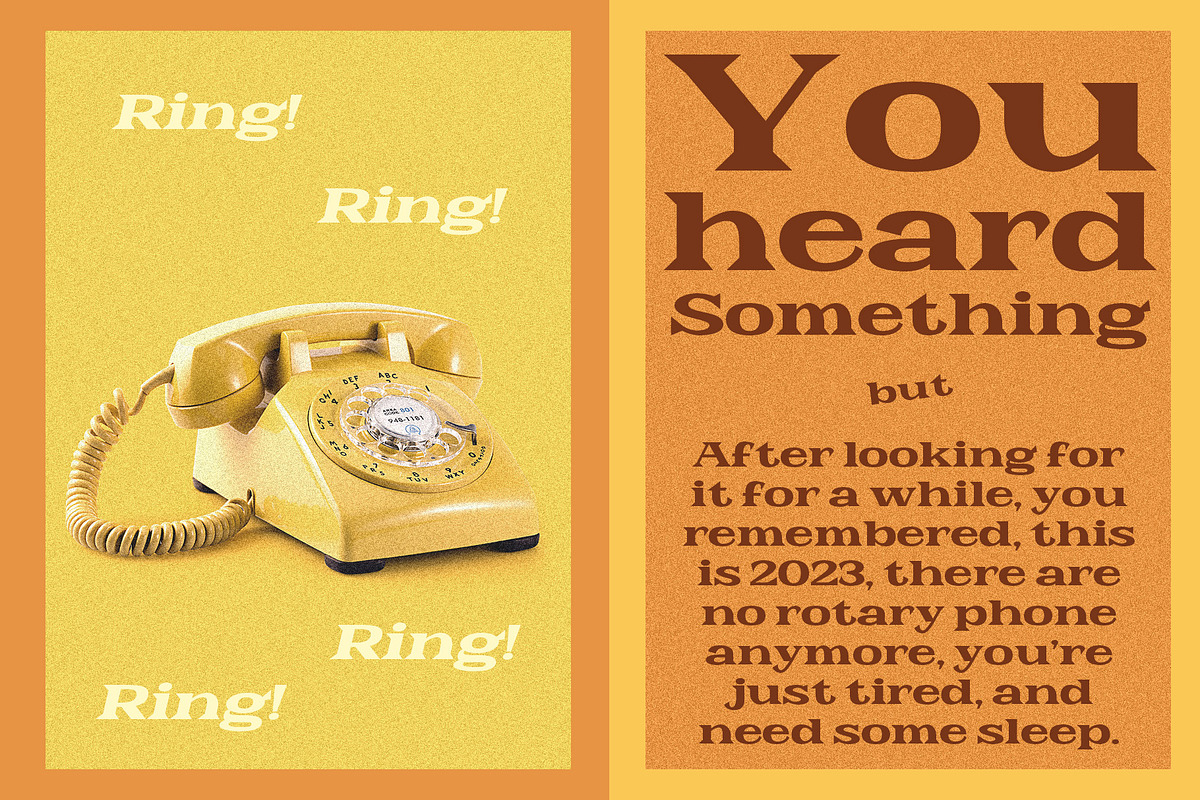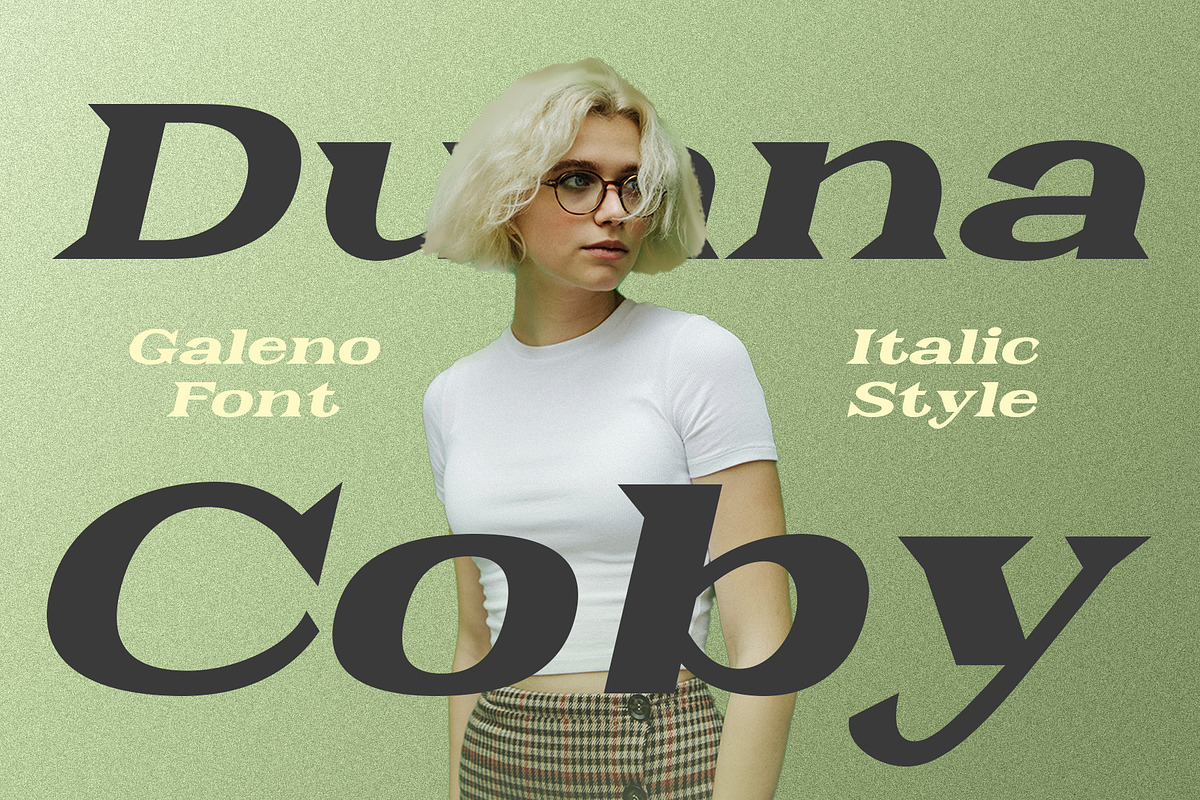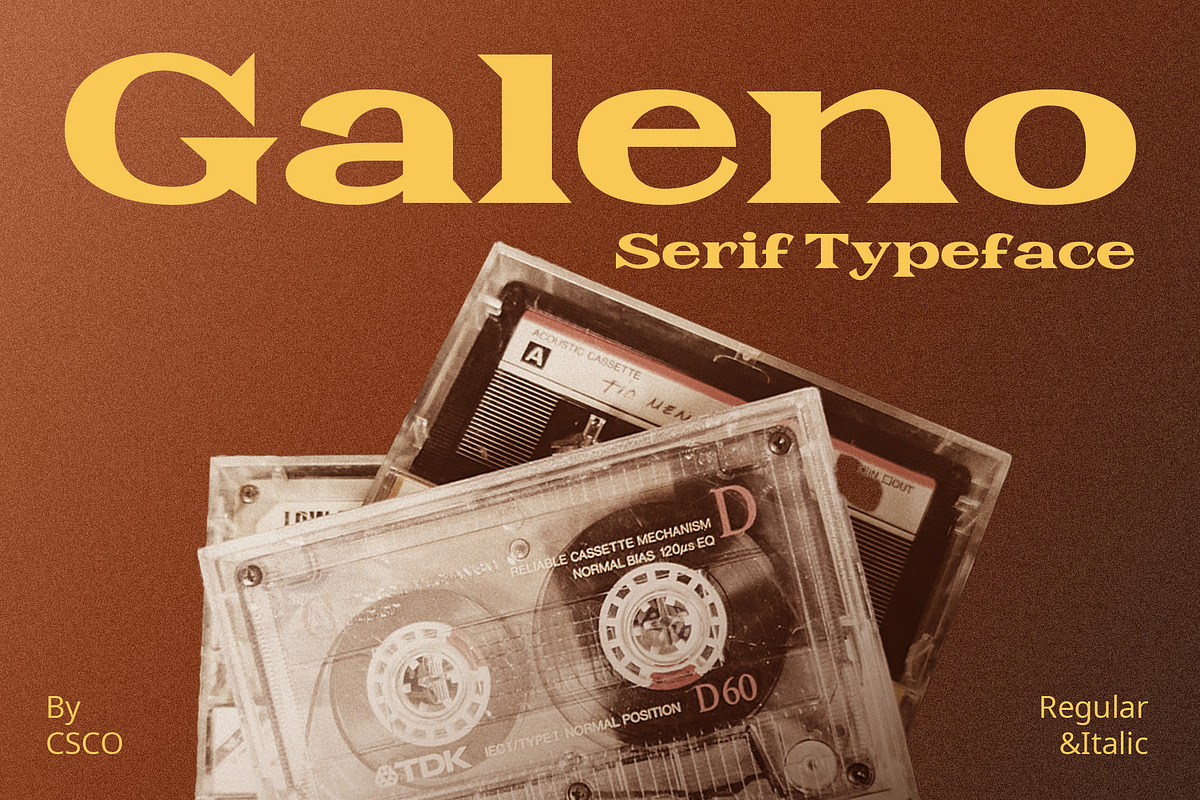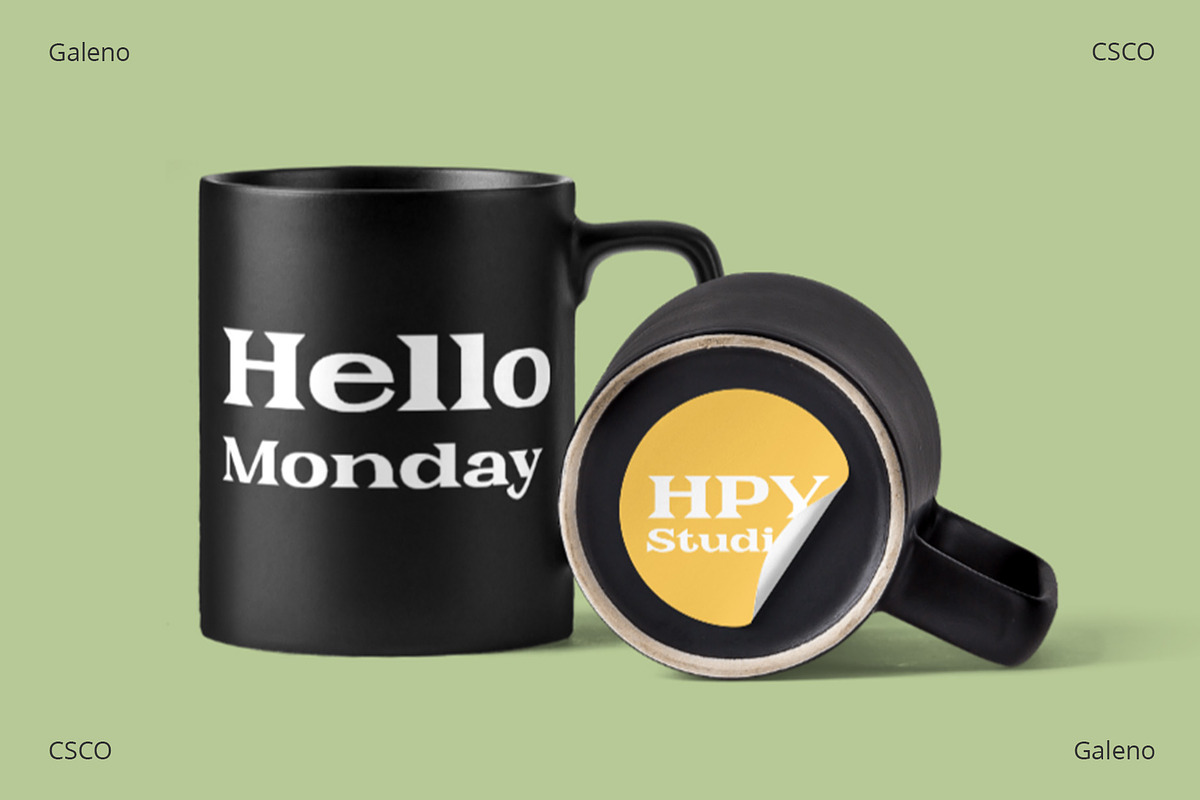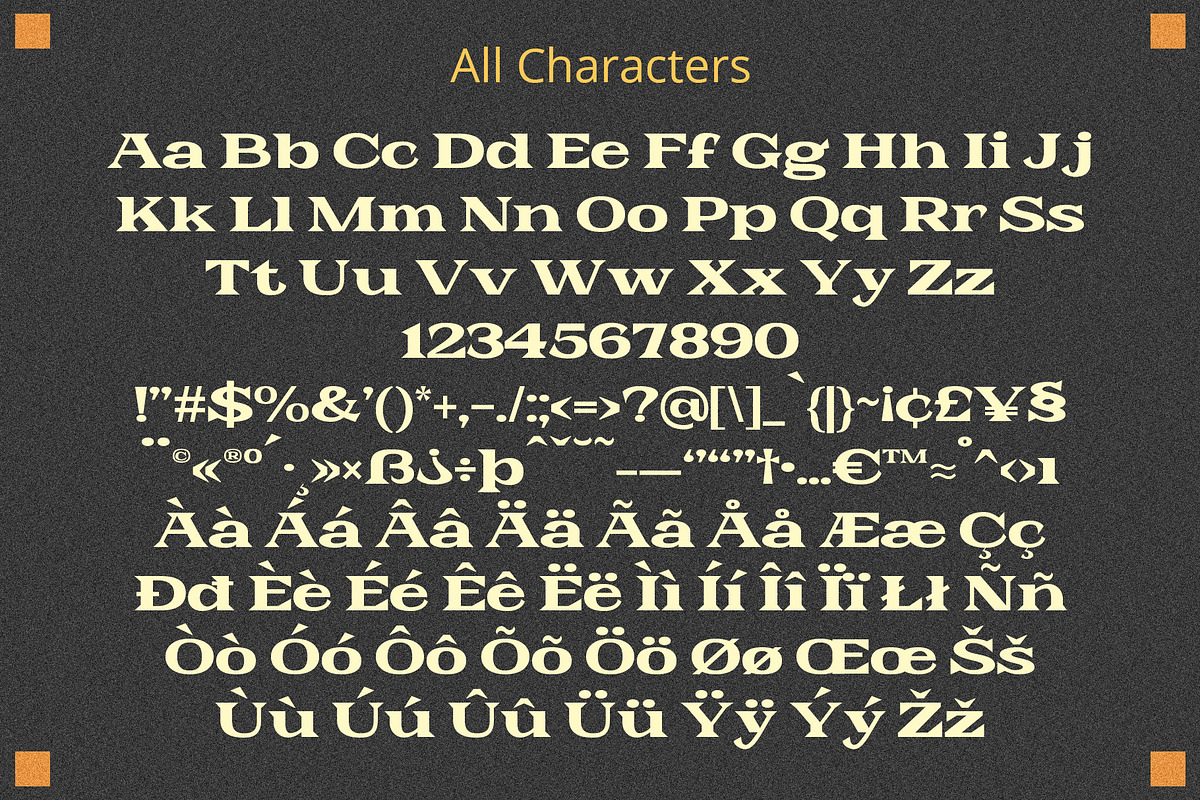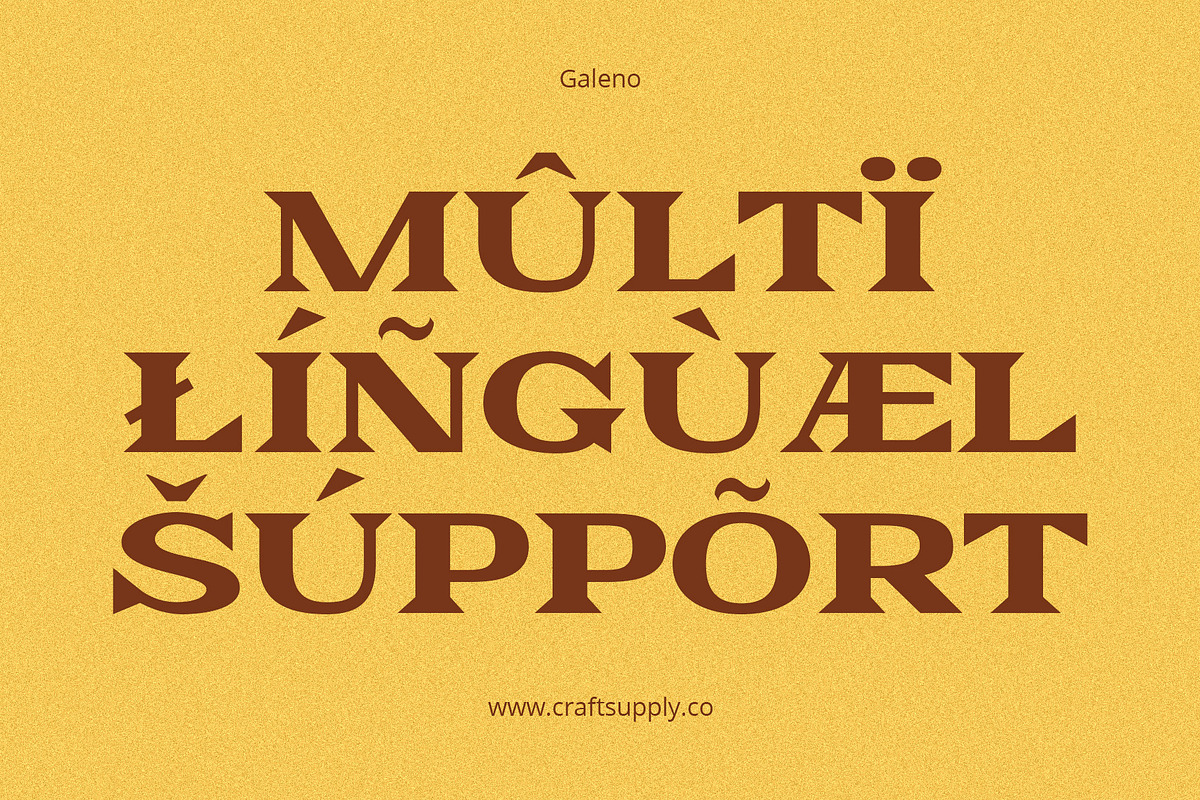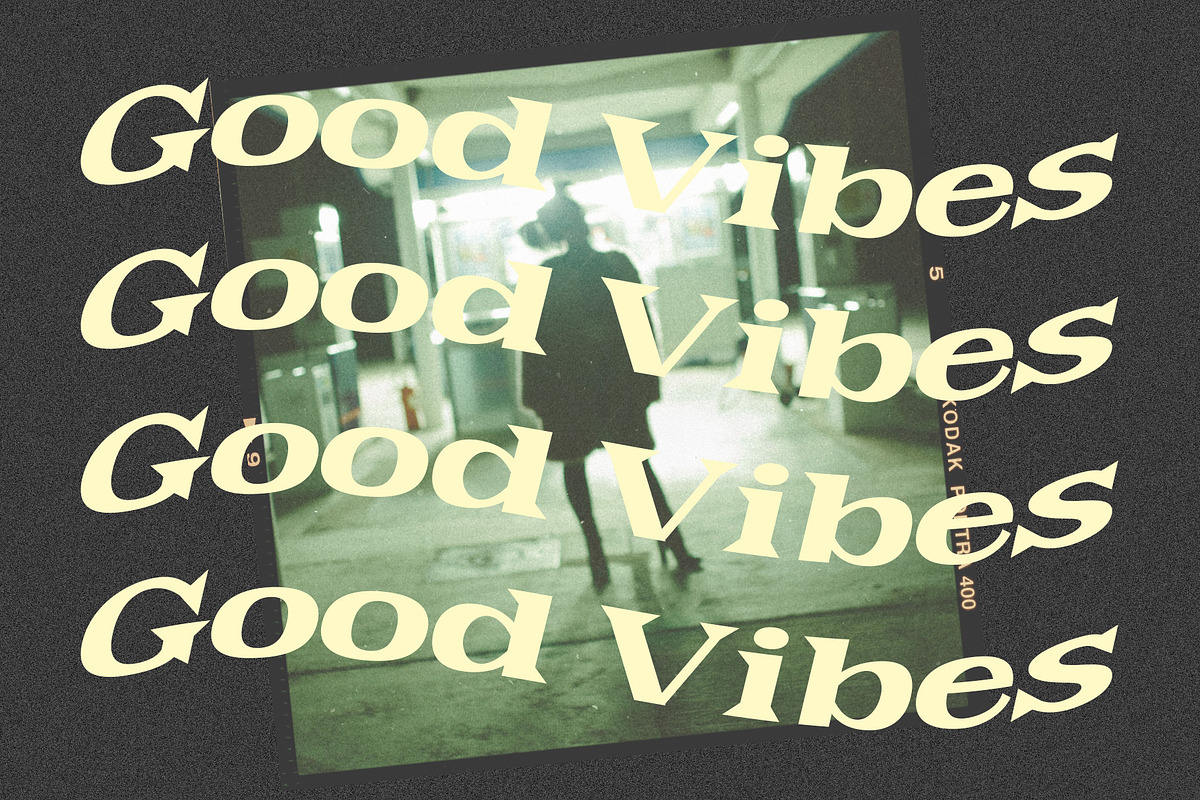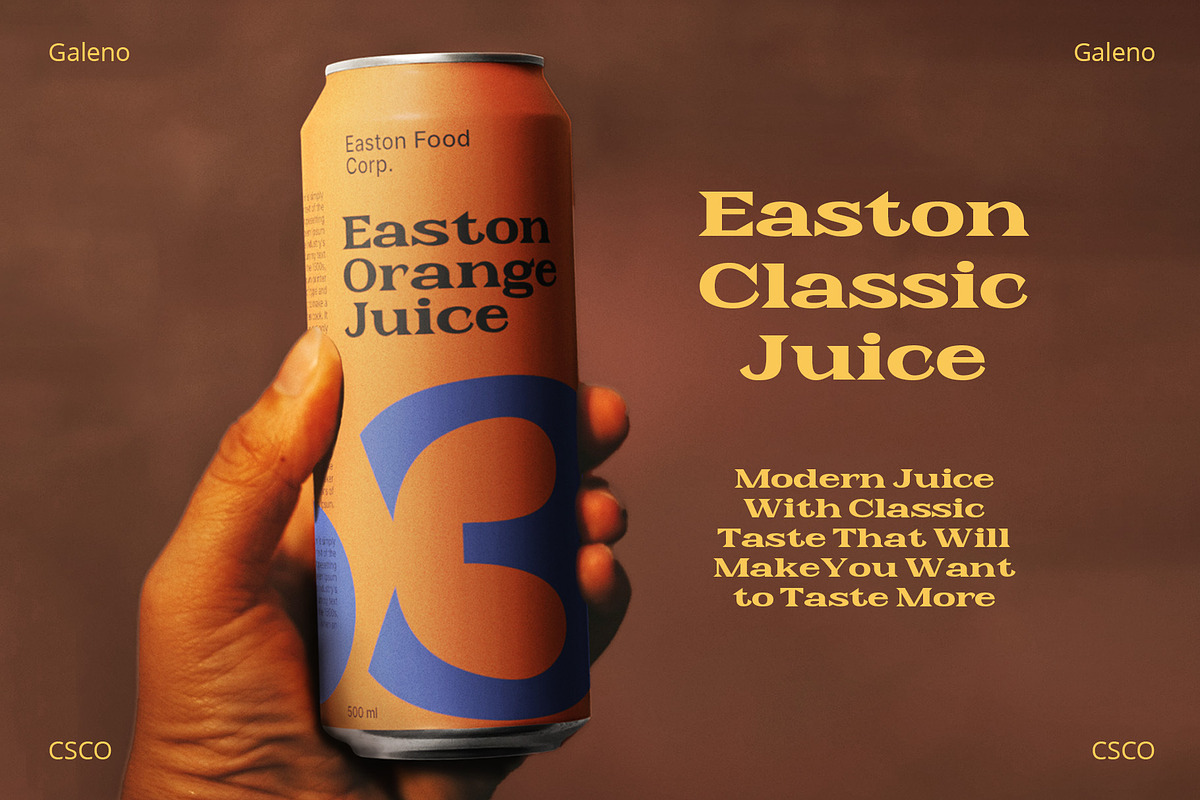
Galeno – Expanded Serif
Introduction to Galeno – Expanded Serif
The Galeno – Expanded Serif font stands out with its unique characteristics. Its design features wide shapes, making it noticeable and impactful. This font showcases wedged serifs, adding a bold and decisive touch. Galeno’s style suits various design needs, offering versatility and appeal.
Galeno – Expanded Serif boasts a distinct wide shape. The wedges in its serifs create a strong presence. This design choice gives text a firm and assertive look. The font’s expansive style ensures readability, ideal for both digital and print formats.
Usability and Versatility
Galeno is perfect for various applications, from headlines to body text. Its clear and commanding style makes it great for professional and creative projects. The font is easily legible, making it a top choice for user interfaces and educational materials. Its versatility extends to marketing materials, enhancing brand identity.
- Galeno Regular
- Galeno Italic